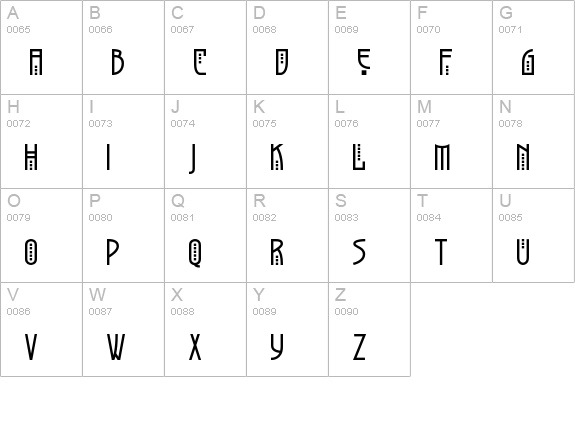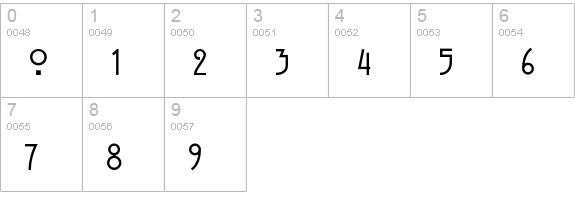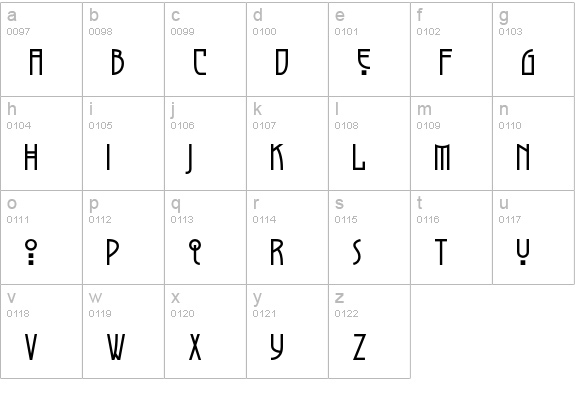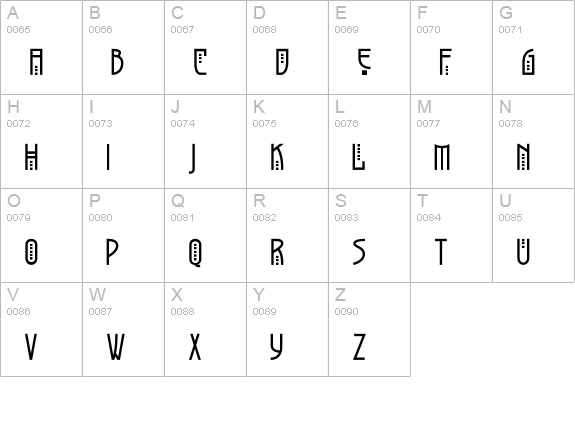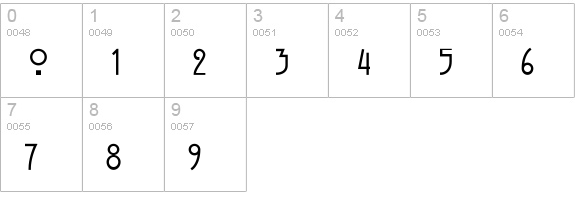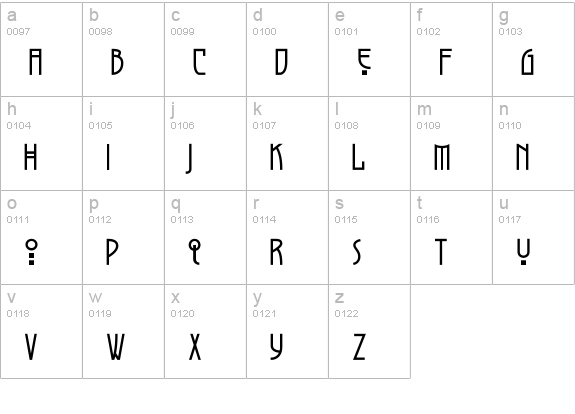
Greyhound Font Details
Greyhound font is a sleek and modern typeface that exudes elegance and sophistication. Its clean lines and sharp edges make it perfect for a wide range of design projects, from branding to editorial layouts. The font's tall and slender letterforms give it a distinctive and stylish appearance that is sure to make your text stand out. What sets Greyhound font apart is not only its striking design but also the fact that it is free to download. That's right, you can access this beautiful font at no cost from FontsMarket.com. Whether you're a designer looking to add a touch of class to your work or a business owner seeking a refined look for your brand, Greyhound font is the perfect choice. Download it today and elevate your designs with this stunning typeface.